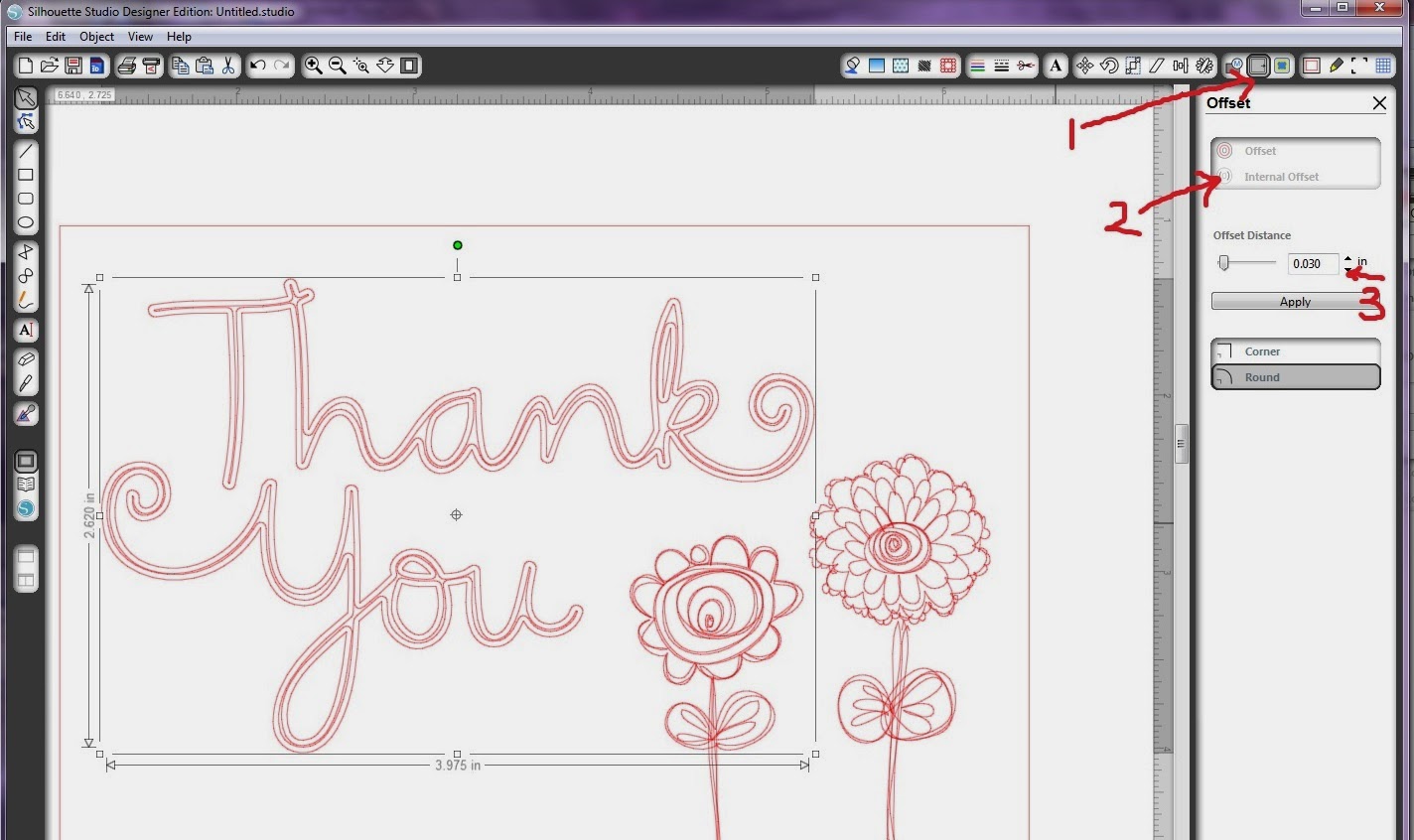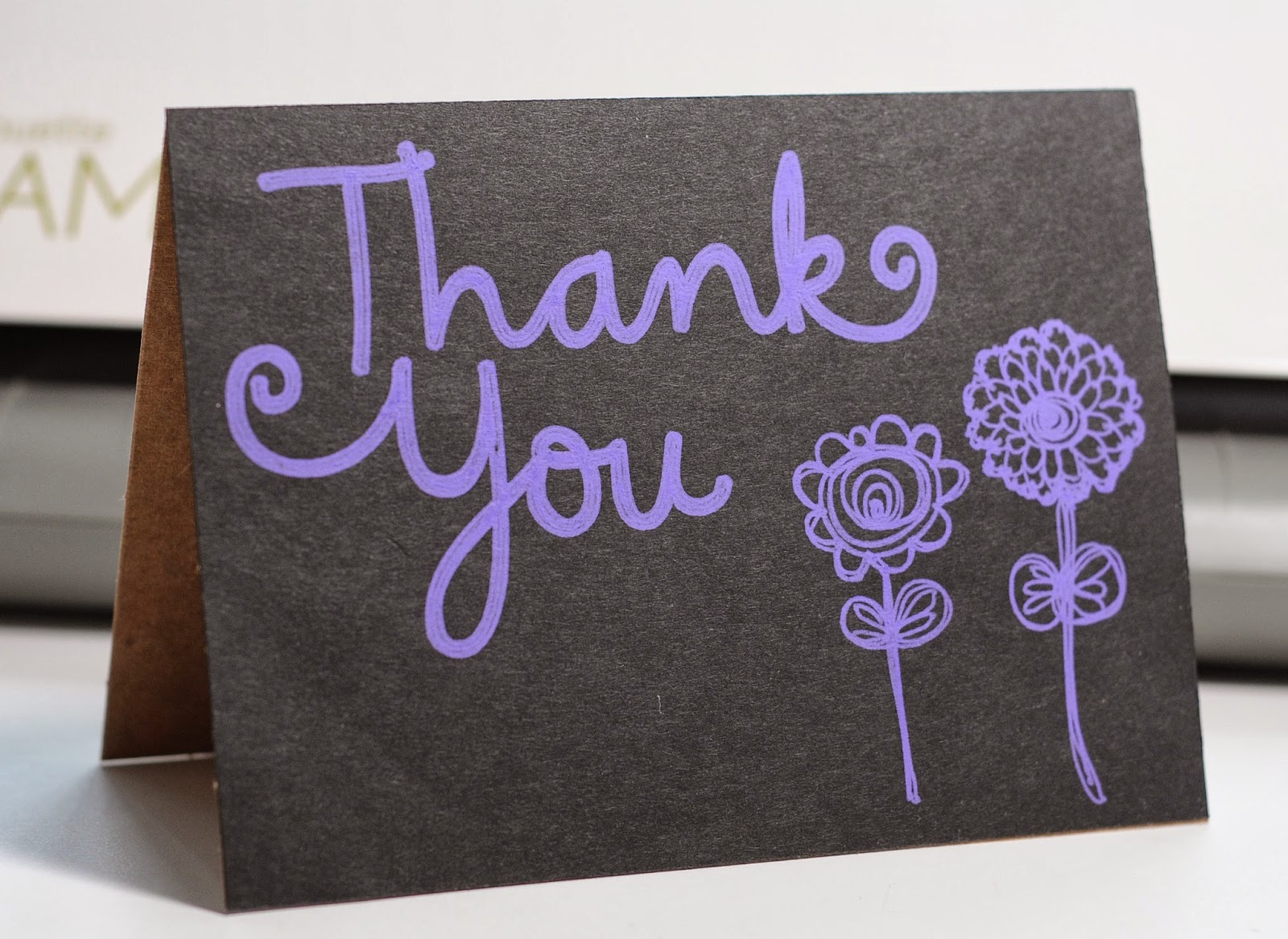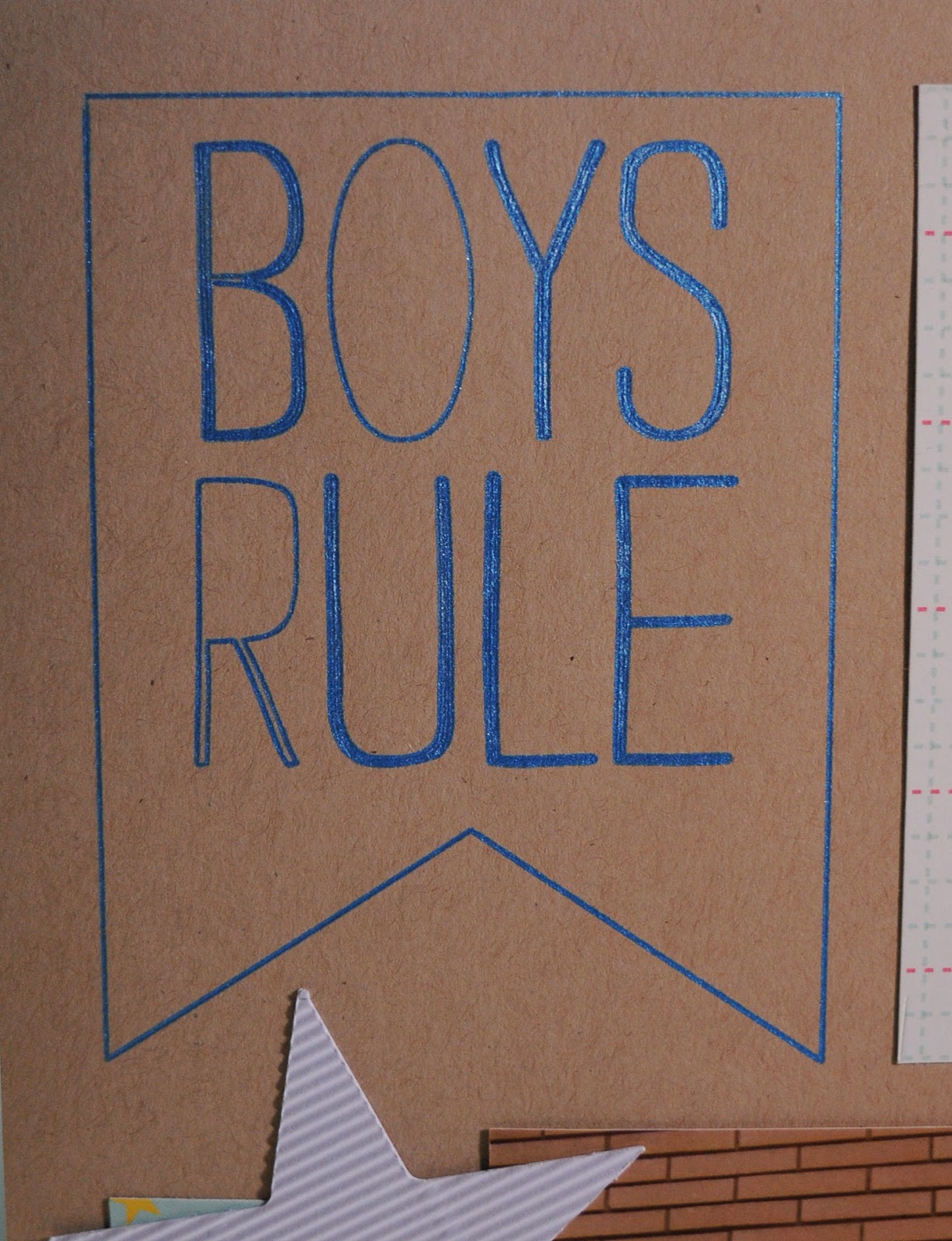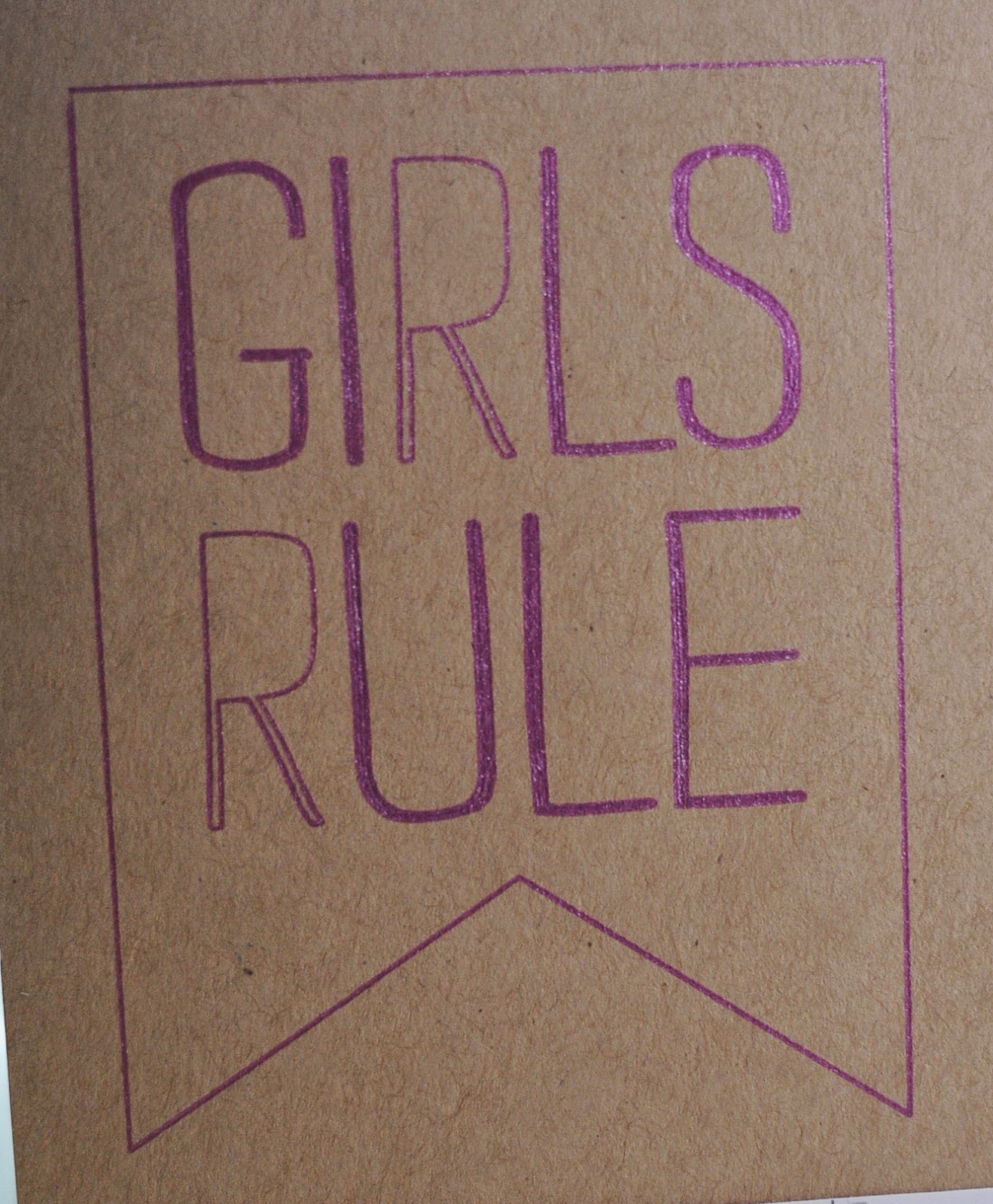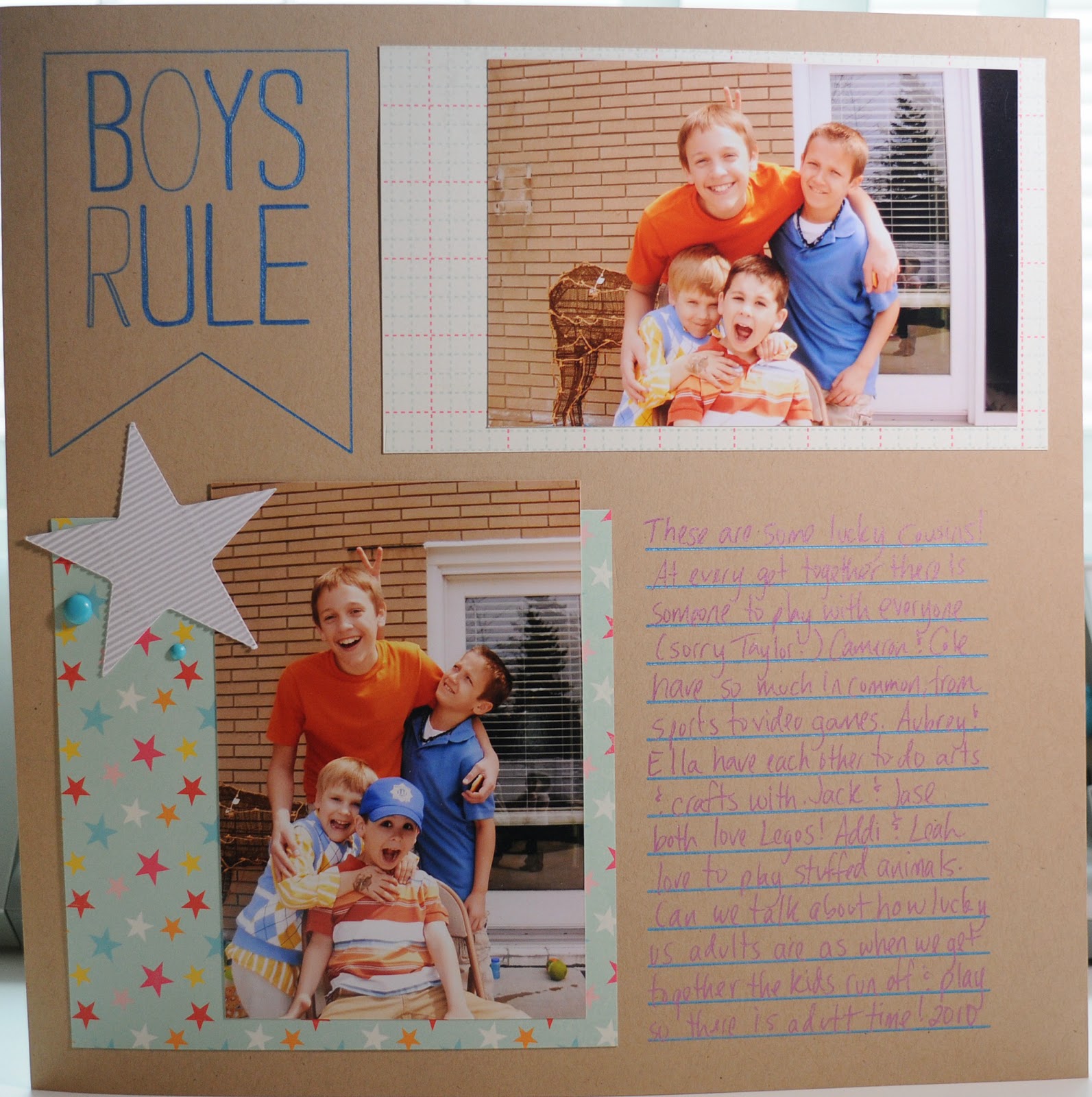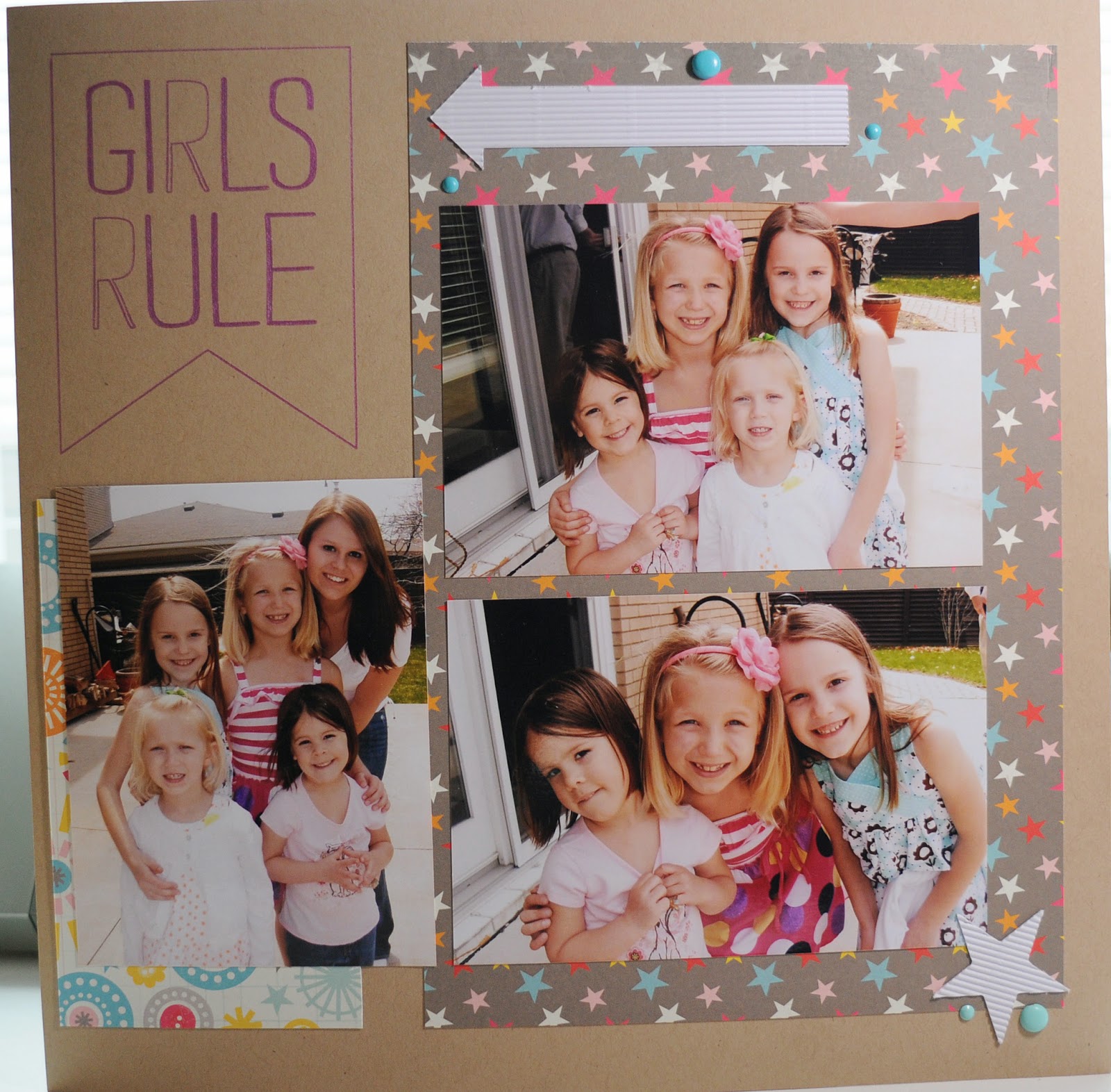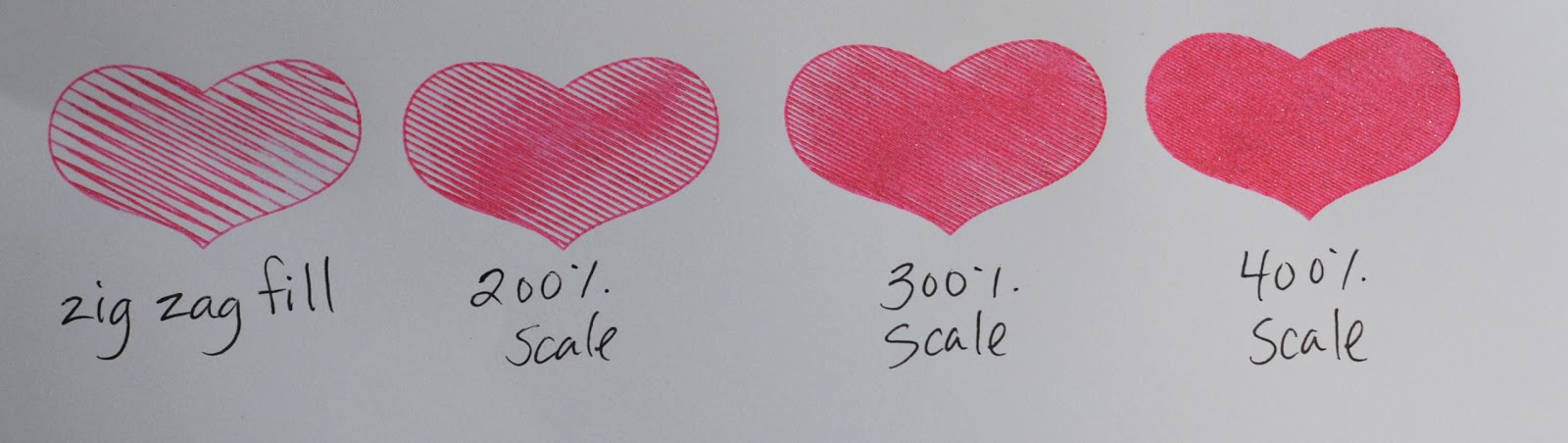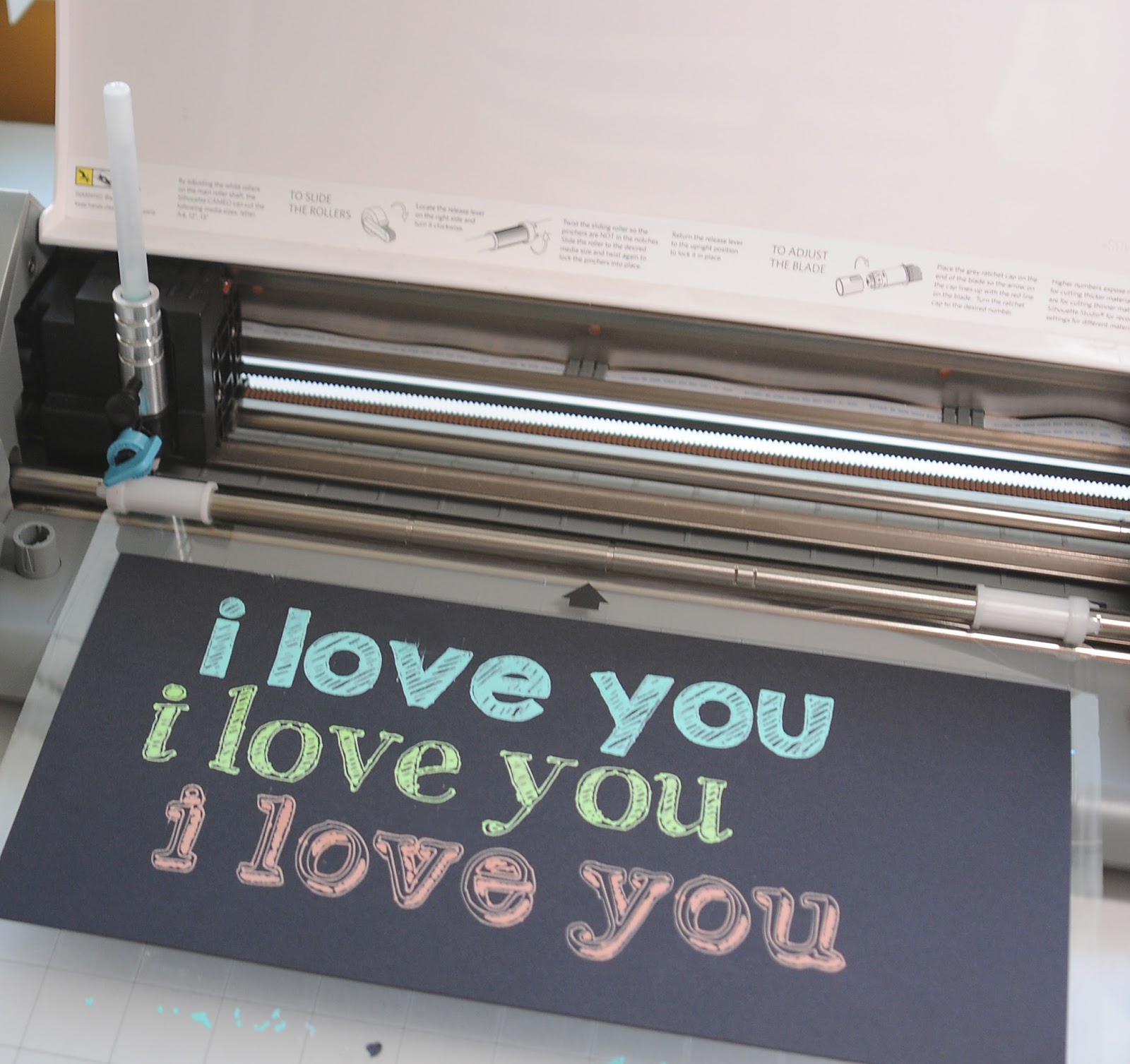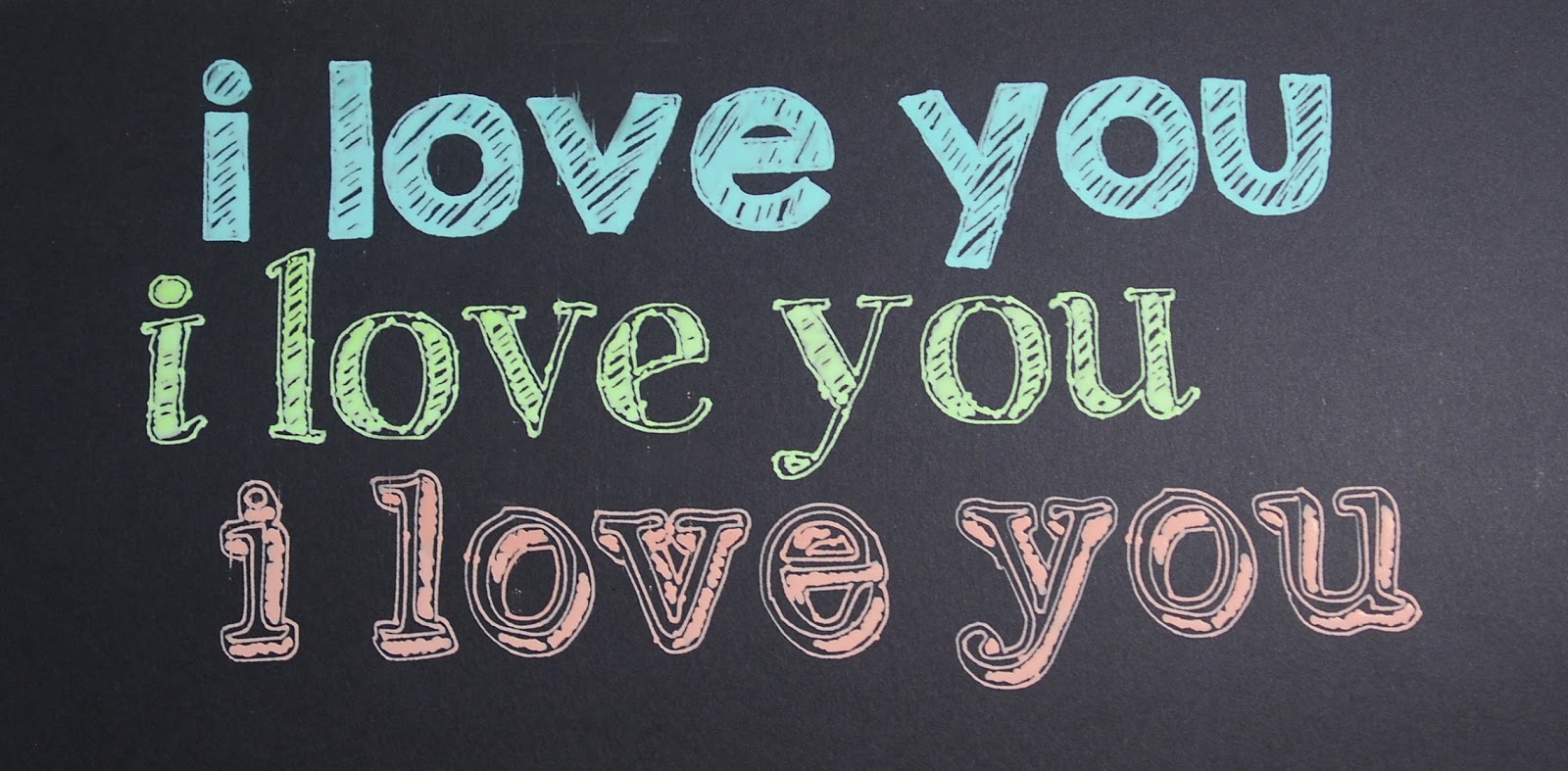
Tutorial filling in fonts with internal offset
I got so many questions on how I filled my design on my last post that I figured I would do a quick tutorial for you!  It is actually quite easy and takes less then a minute!  The designs are all Studio downloads.
Click on the offset feature (1) then click on internal offset (2).  You can adjust the offset up and down to space the lines inside your design (3).
Make sure you highlight the outside of your design each time you do this and keep changing the offset up and down until it looks full.  This is a small design, so I did the internal offset 4 times and it completely filled in my design.
I then added a Sakura Moonlight Gelly roll gel pen to the Chomas Creations adjustable pen holder, adjusted the thickness to 6 and the speed to 3 and drew my design.  Notice that my design is moved away from the white rollers to prevent smearing.
And here is my finished card!!!  Doesn't it look like chalk on chalkboard!
Boys rule, girls rule with the Chomas Creations adjustable pen holder
Well what should you do on a Sunday afternoon in the summer when there are thunderstorms?  Create of course!  And not feel guilty!  I used the Chomas Creations adjustable pen holder with a Sakura metallic Gelly Roll gel pen to draw the lines and the title on this.  I used the offset method to fill the lines in the title.  You can find out how to do that here... offset fill in
I love making lines for journaling right on my background paper, then I can get all my words to line up and look clean and neat, even in my own handwriting.
Here are the finished pages!  My daughter told me I spelled boys drool wrong!  LOL!  She cracks me up!
Chalkboard look with Chomas Creations adjustable pen holder
Ok I do have plans with this project, but I was so excited how these Soufflle gel pens by Sakura show up on the black cardstock and kind of gave that chalkboard feel, that I had to just share!  That and this fun blog called I should be mopping the floor (shouldn't we all?  lol) shared these awesome fonts that would be fun to draw, and even engrave, she calls them chalkboard fonts.  There is a long list (25!) of these chalkboard fonts here... I should be mopping the floor
Here are just 3 of the fonts I chose to try out.  I used the Souffle gel pens in the Chomas Creations adjustable pen holder in the Cameo to draw these.  This is just normal black cardstock.  Because these gel pens are very juicy, I do slow my speed down to about 3-4 to do this.  And they do take a couple of minutes to dry, so let the project sit on the mat until dry so as not to smear (live and learn!)
Fill images in Silhouette Studio
Kay of Clever Someday is always coming up with something super cool to do with your die cut machines!  I am often asked about filling fonts or images and she linked me to this video she made, short, sweet and right to the point, you have to watch...  filling fonts
So today I finally had a chance to give it a go!  I just filled hearts and you will have to watch the video to understand what the % means on this picture.  I used a gel pen in the Chomas Creations adjustable pen holder to do these, next I'm trying it with the Chomas Creations engraving tip!
These images are just over 1 inch tall, of course the smaller the image, the smaller scale you could get away with.